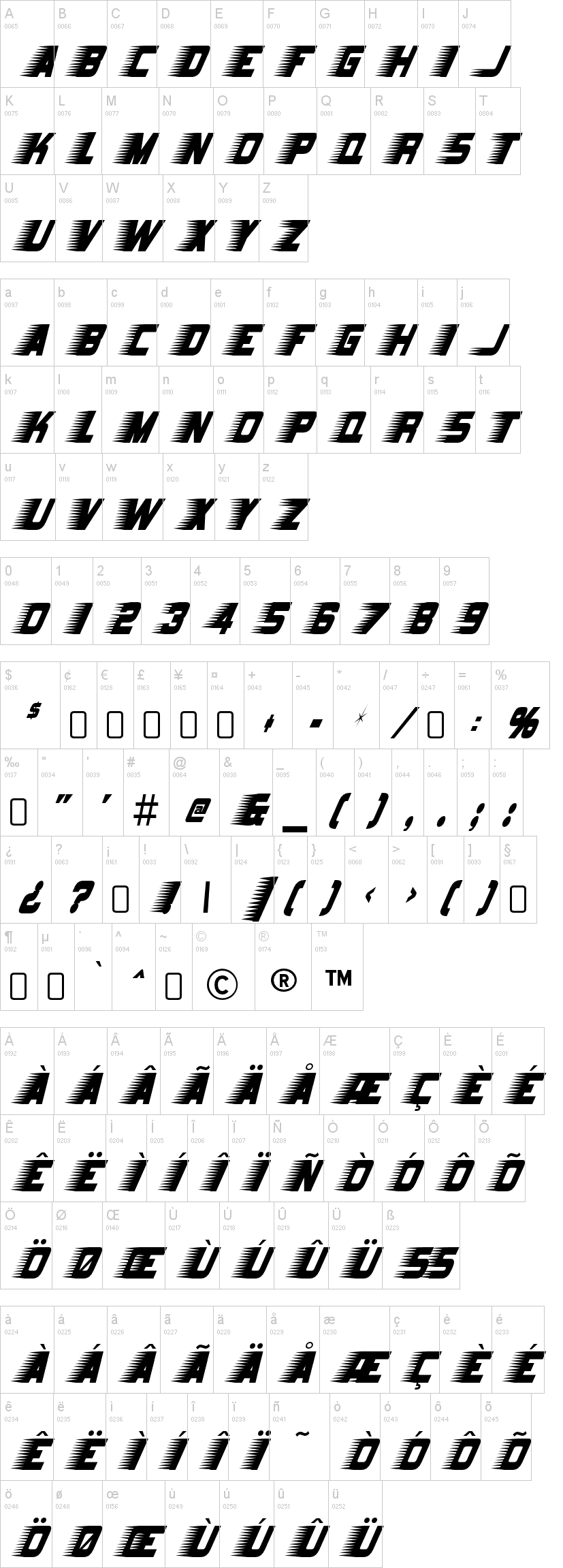
Шрифт Barbatrick
Barbatrick is a speedy mid 20th Century styled headliner. Don't forget to read the files inside the zip for details. Updated in 2012.